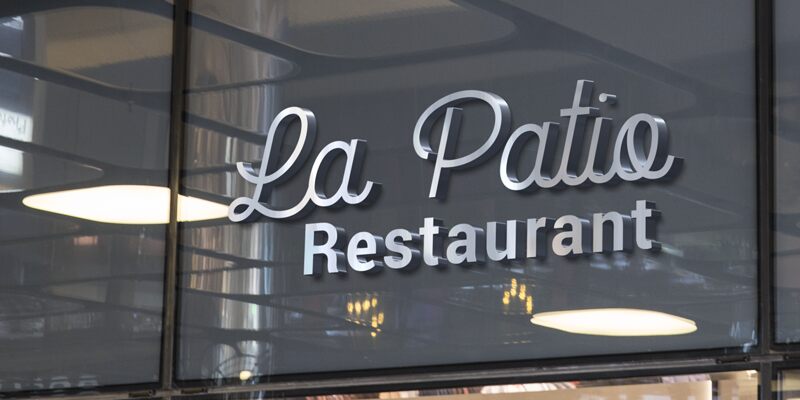
La Patio, a captivating handwritten font crafted by Nasir Udin, exudes a warm, inviting charm that captivates the eye. This expressive typeface boasts elegant, flowing strokes that seamlessly blend together, creating a sense of effortless sophistication. The subtle variations in line weight and the organic, hand-drawn aesthetic lend the font an authentic, personal touch, evoking a sense of authenticity and human connection.
La Patio's versatility shines through its ability to elevate a wide range of design projects, from elegant wedding invitations to charming product packaging and captivating branding initiatives. Its distinctive personality adds a touch of whimsy and personality to any design, making it a compelling choice for designers seeking to infuse their work with a heartfelt, handcrafted feel.